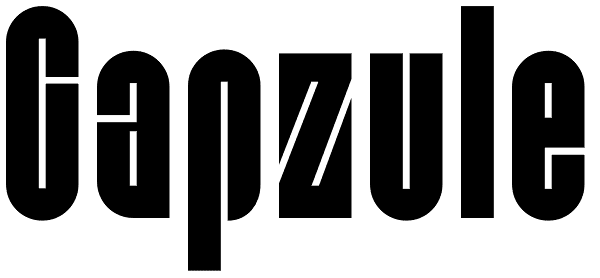
Capzule
The capsule shape has long been a favorite of mine. So, why not use it as the basis for a font design. And if you hit the cap bar key, you'll find a hidden capzule. Take two and catch some Zs before you resume surfing for fonts.
Capzule Font